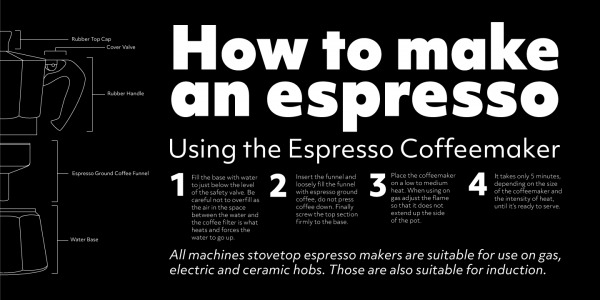
This typeface is characterised by a lot of details, which gives it a strong character. Its designer, Bruno Mello, followed the principles of mathematical structures but didn’t forget that this is a typeface intended to be used by humans.